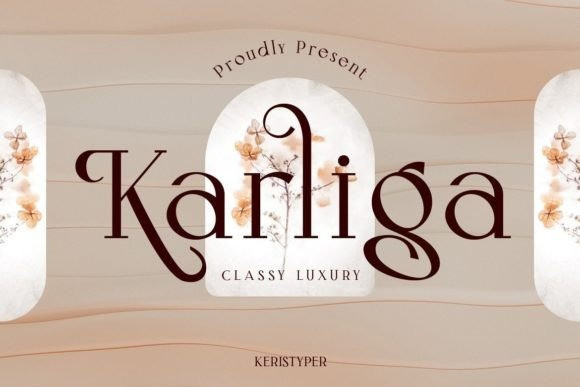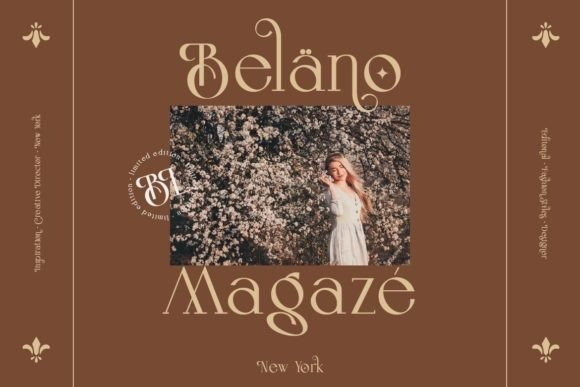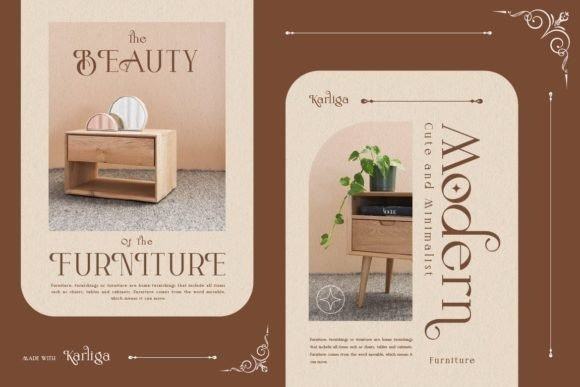
Karliga Font
Karliga is a modern vintage serif typeface. This font is good for logo design, Social media, Movie Titles, Books Titles, short text even long text letters, and good for your secondary text font with sans or serif.